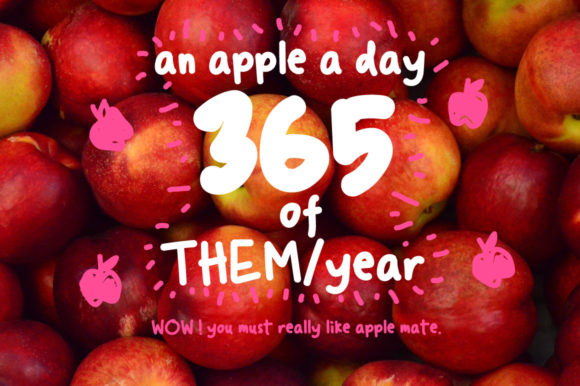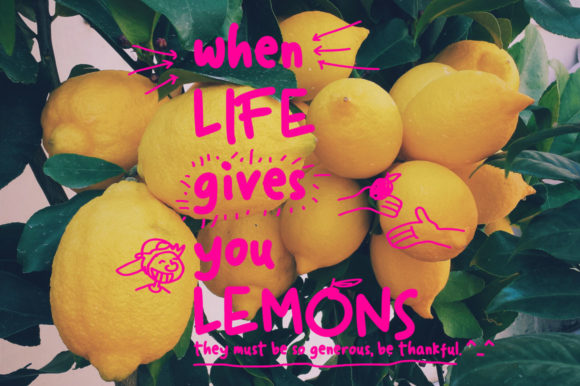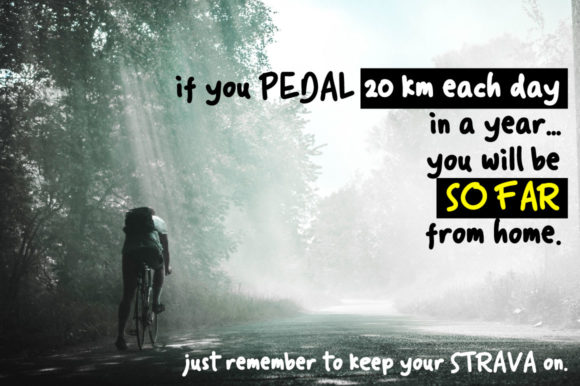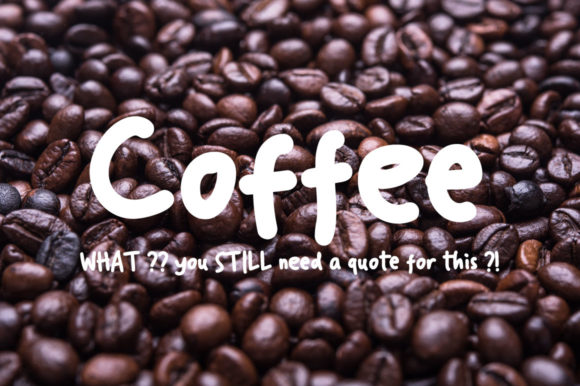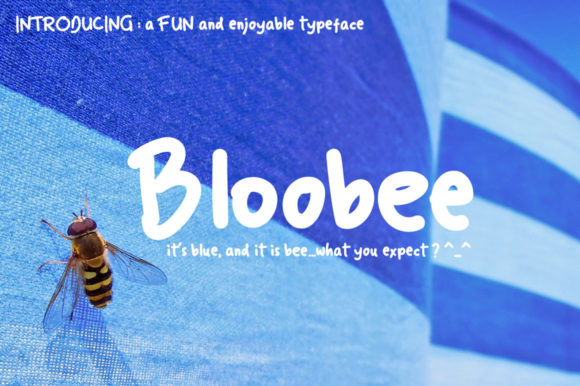
The Bloobee Font: A Fresh and Friendly Typeface for Creative Projects
I’ll never forget the moment I stumbled upon the Bloobee font while working on a branding project for a playful kids’ app. I was on a tight deadline, and my usual go-to fonts just weren’t cutting it – they were either too serious or too over-the-top. As I scrolled through my font library, Bloobee caught my eye with its bouncy, energetic vibe. It was like a breath of fresh air! I knew right then and there that I had found the perfect fit for my project.
• ✨ Energetic and friendly feel: Bloobee’s light bounce on every letter gives it a lively, approachable personality that’s perfect for projects that need a playful touch.
• ✅ High legibility: Despite its bouncy nature, Bloobee remains surprisingly easy to read, even at smaller font sizes.
• ✅ Versatile: This font works well for both digital and print projects, from social media graphics to posters and flyers.
• ⚠️ Limited use in formal contexts: Bloobee’s playful nature makes it less suitable for formal or professional projects, such as corporate reports or academic papers.
• ⚠️ Glyph support: While Bloobee has a decent range of glyphs, it may not support all special characters or languages.
The Story Behind Bloobee: Designer Inspiration
Bloobee was designed with the goal of creating a fresh, energetic typeface that would bring a smile to users’ faces. The designer, inspired by the playful nature of children’s drawings, aimed to capture the essence of youthful creativity and curiosity. The result is a font that’s both fun and functional – perfect for creative projects that need a little extra personality.
What makes Bloobee unique? Bloobee’s light bounce on every letter gives it a distinctive, energetic feel that’s hard to find in other fonts.
Is Bloobee suitable for body text? While Bloobee is legible, it’s best suited for headlines, titles, and short paragraphs. For longer body text, a more traditional font might be more suitable.